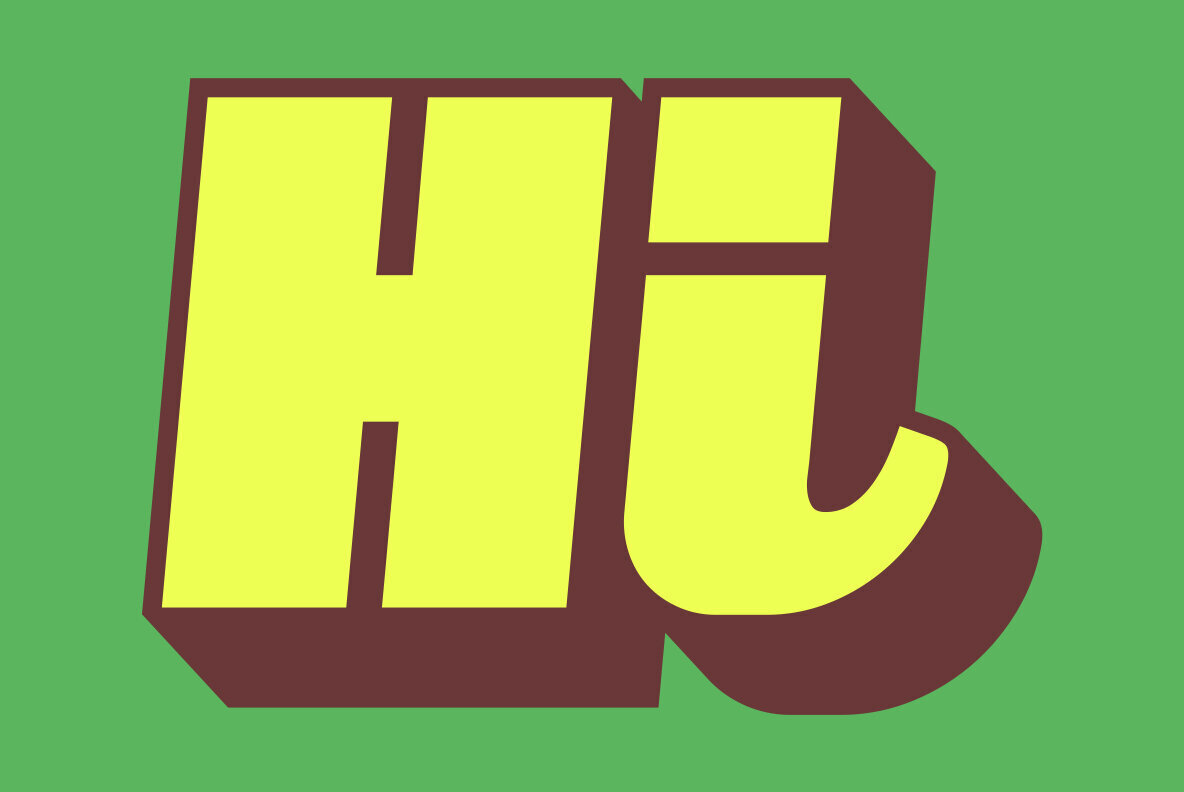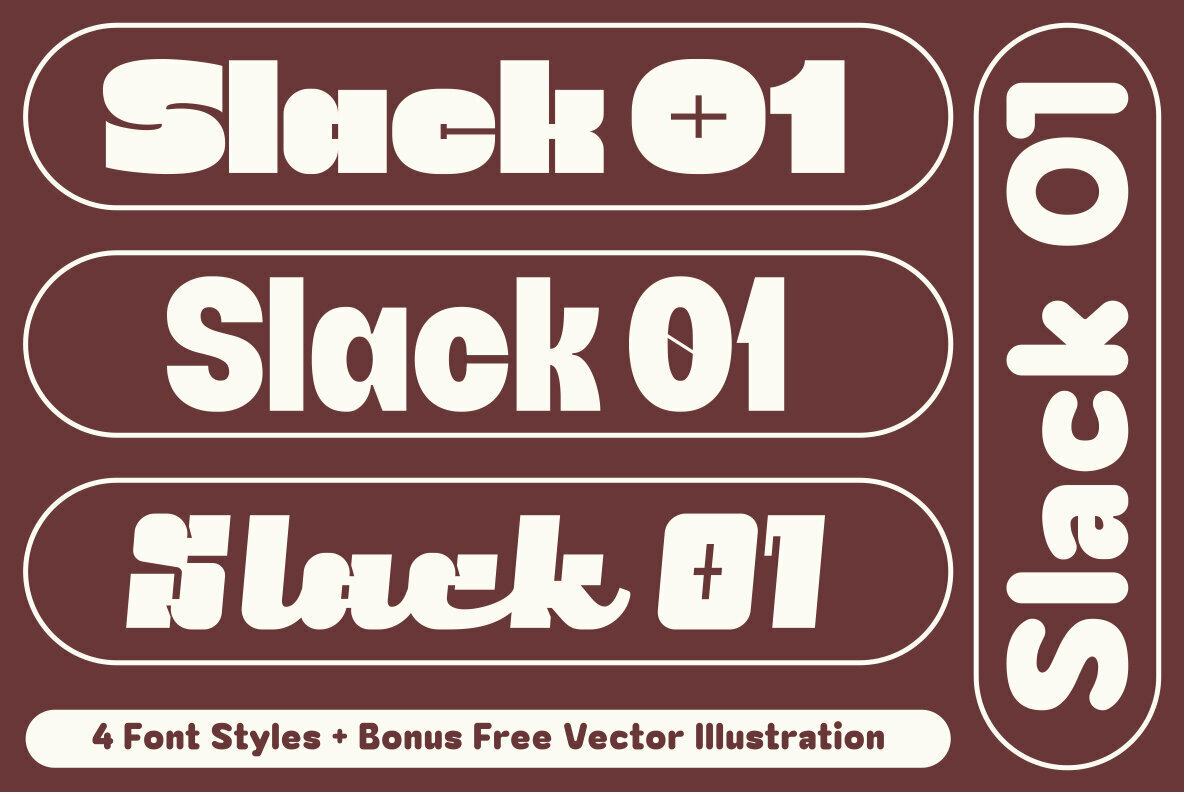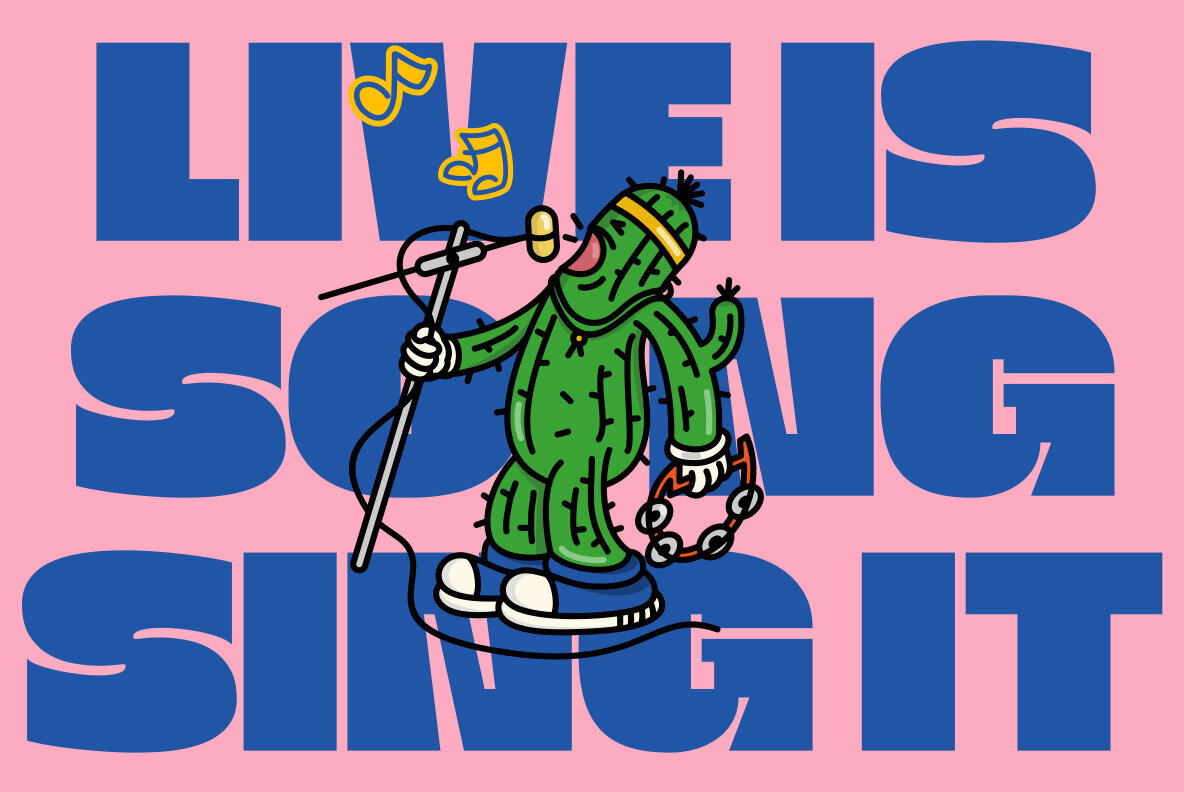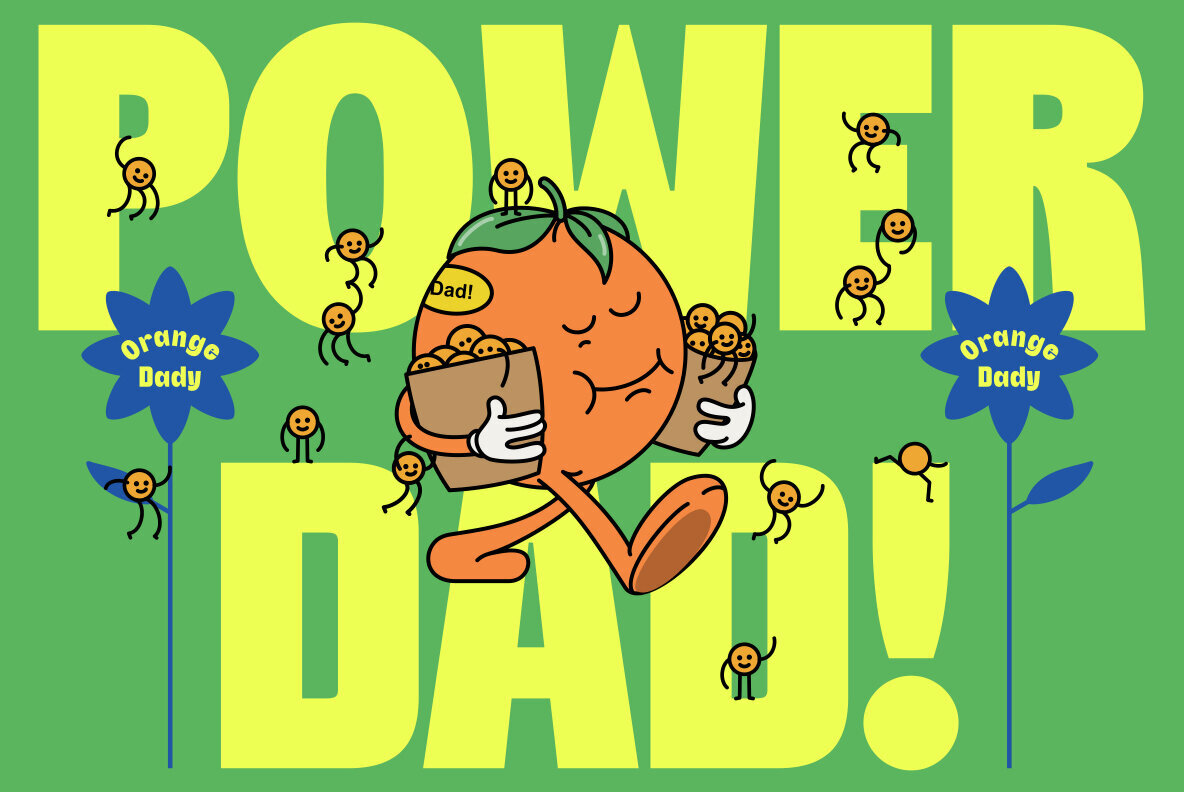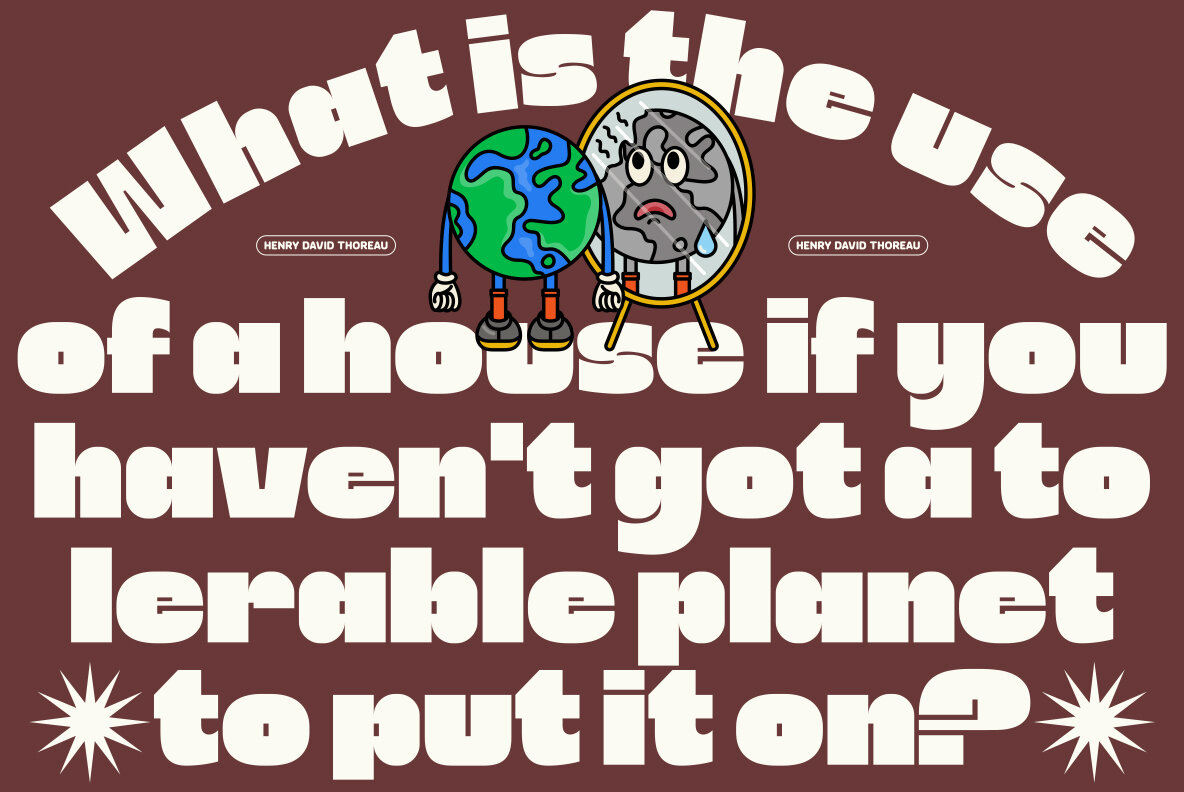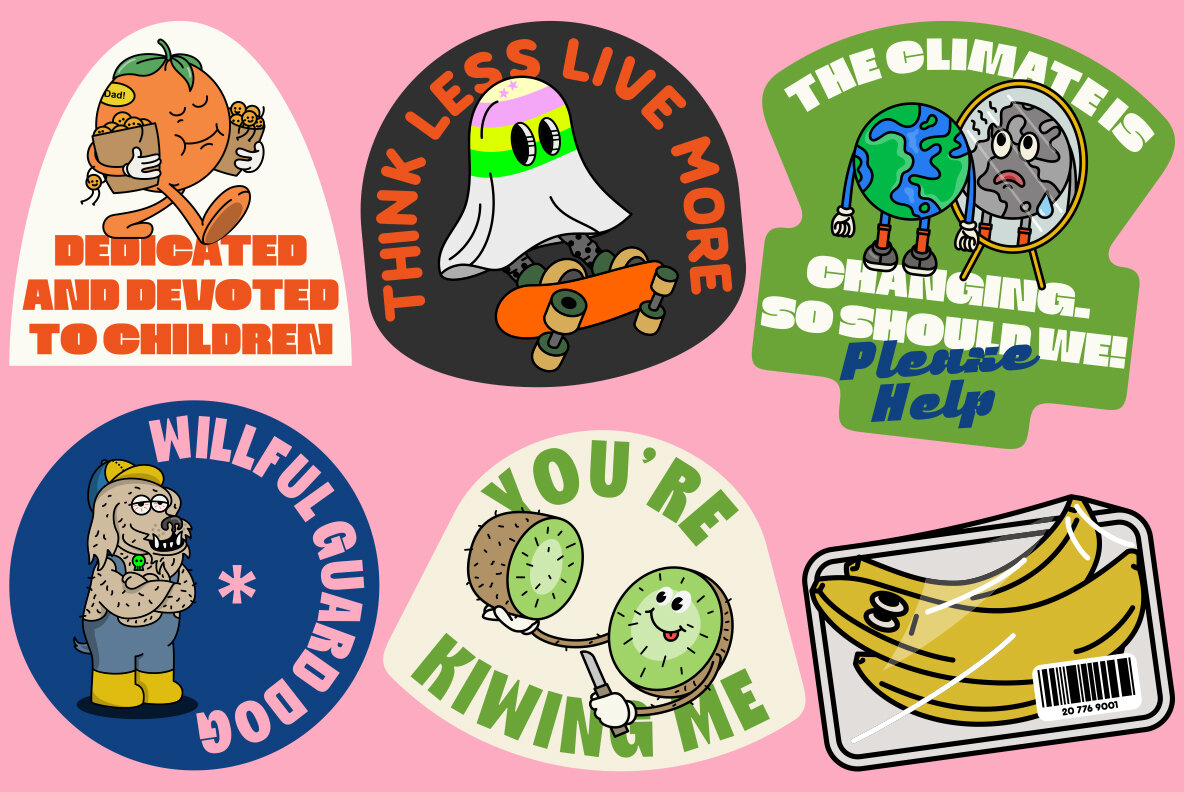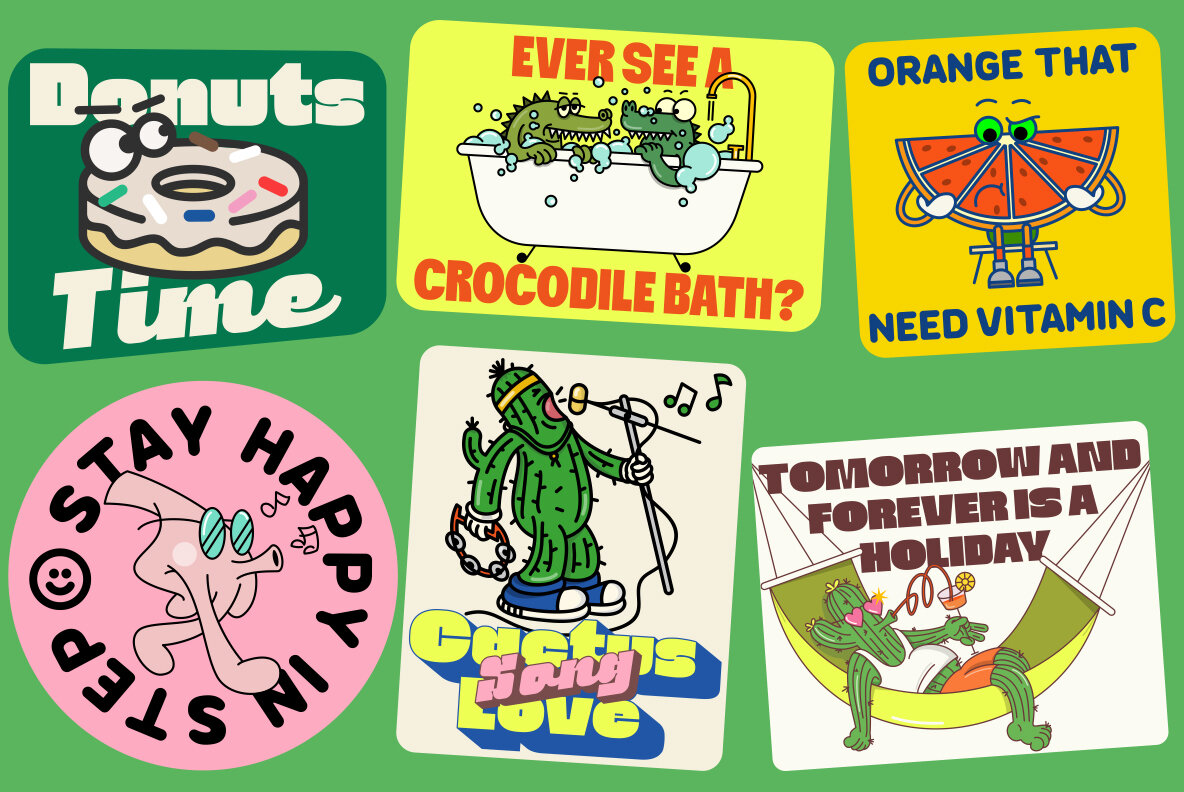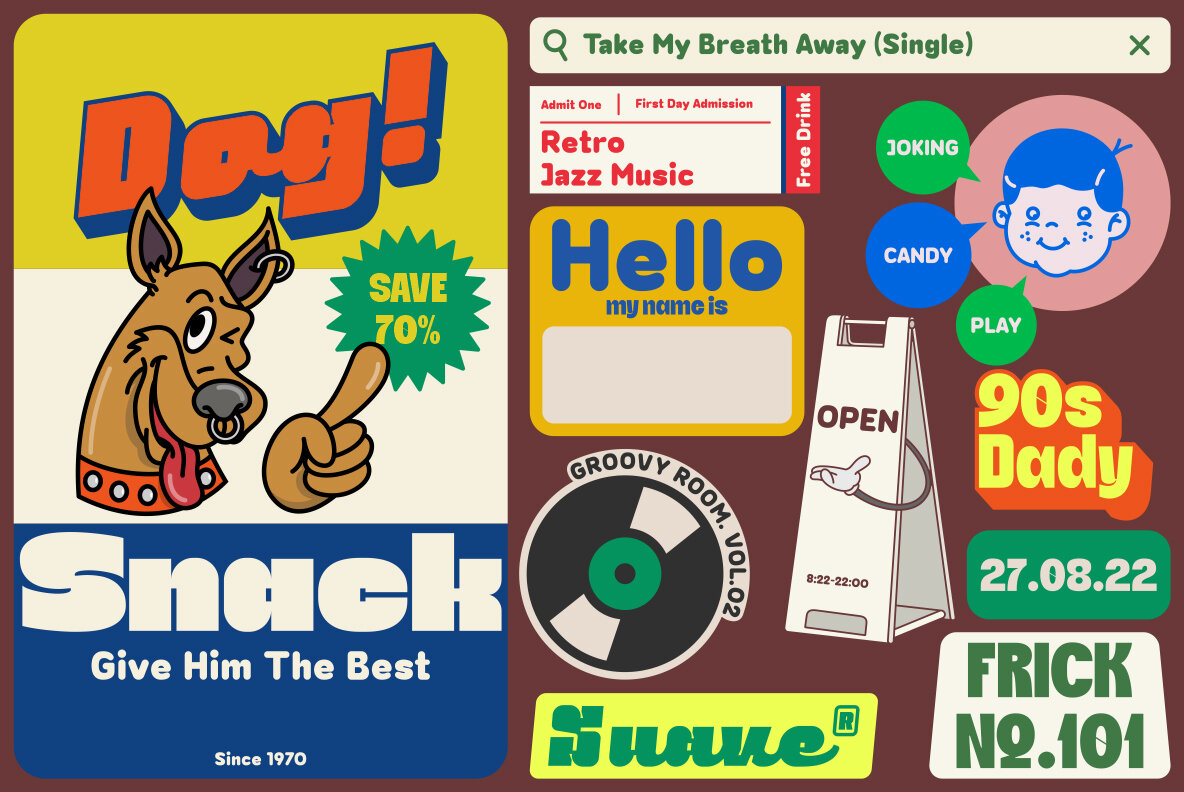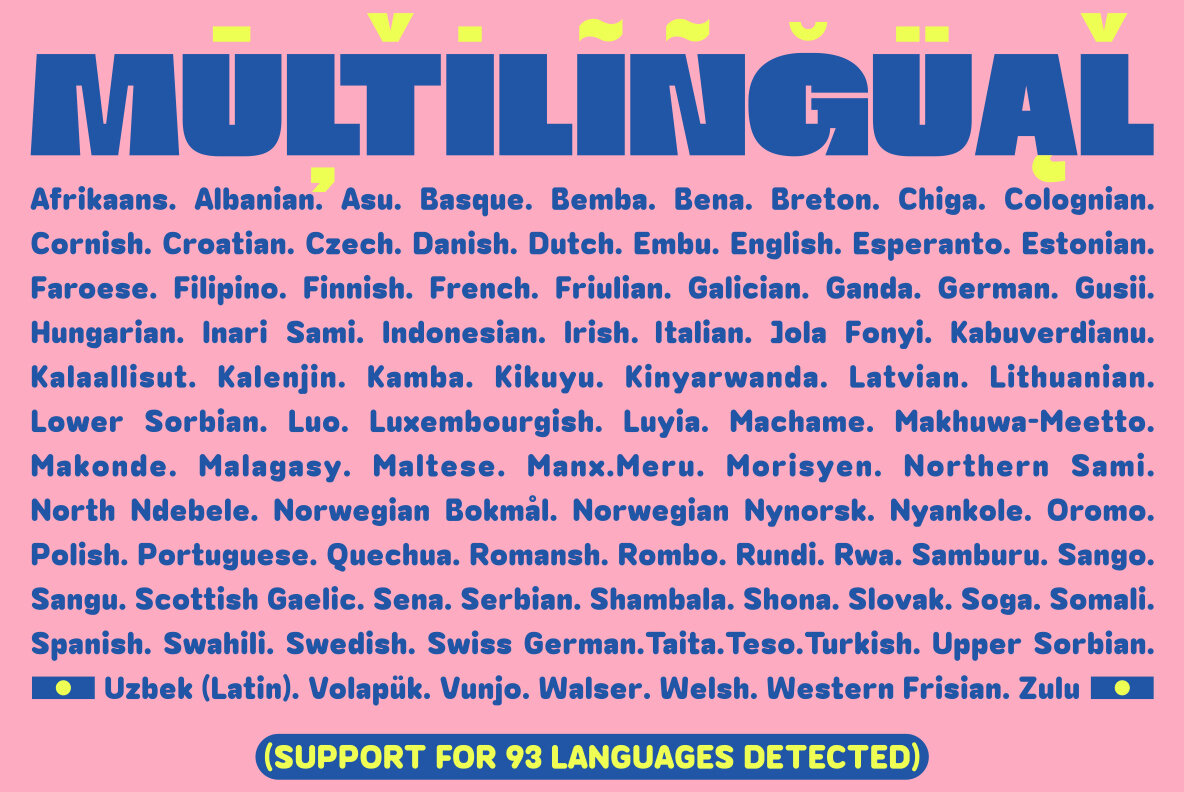
Slack 01: A Vibrant and Playful Typeface
Incorporating a lively spirit and vivid colors, Slack 01 offers a delightful experience for designers seeking to infuse energy and modernity into their projects. Its cheerful style makes it the perfect choice for those brainstorming creative ideas and crafting distinctive artworks.
Features:
• Fun and modern design with vibrant colors.
• Perfect for innovative and engaging projects.